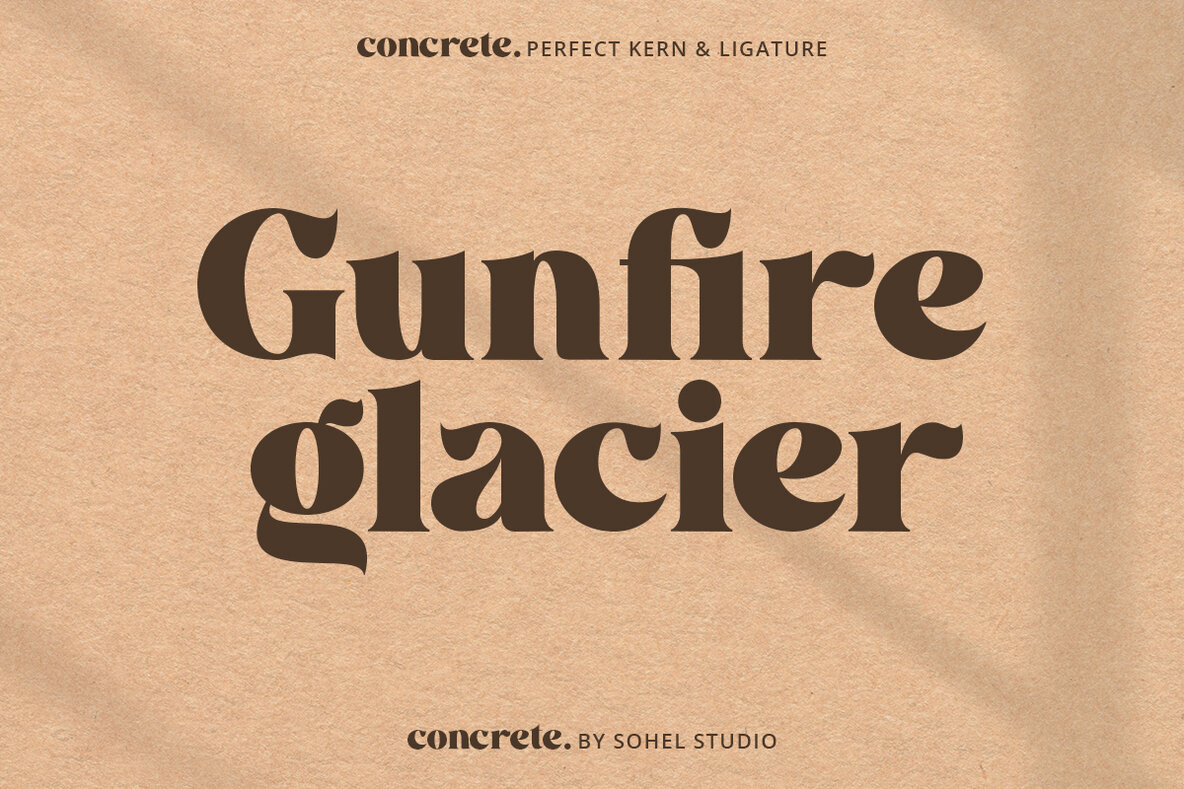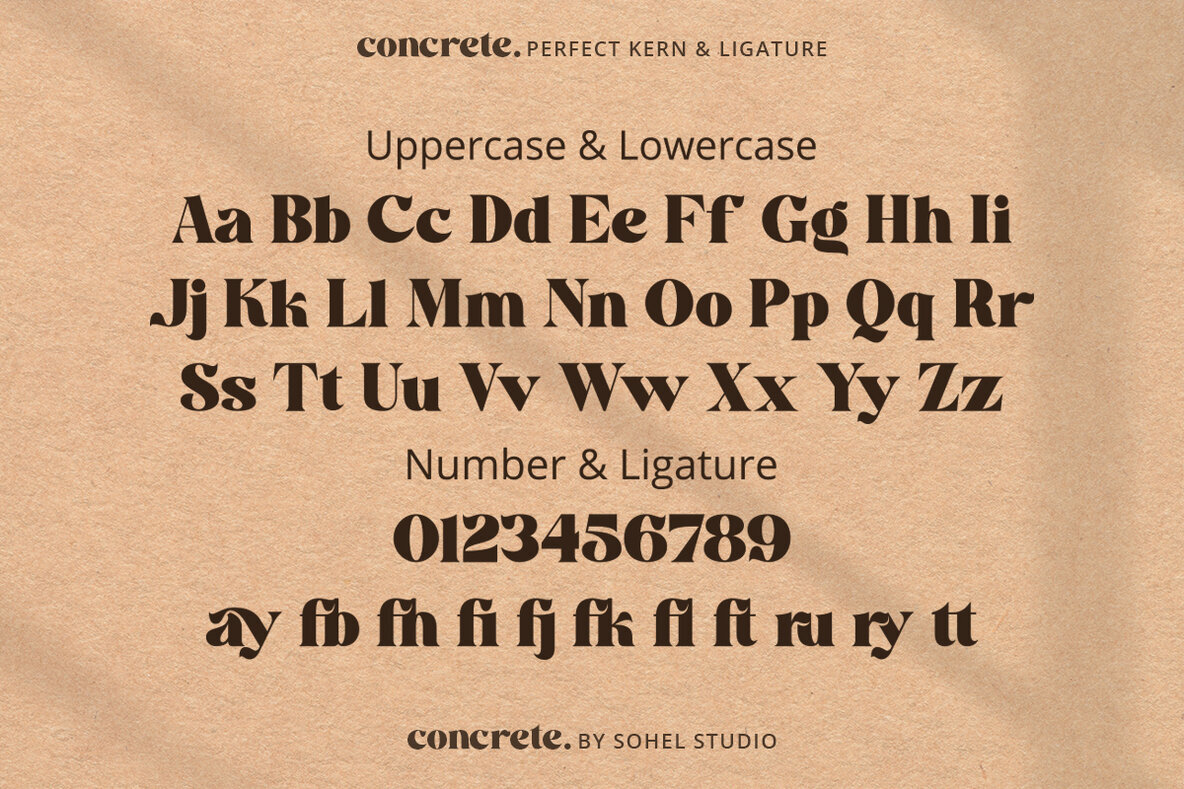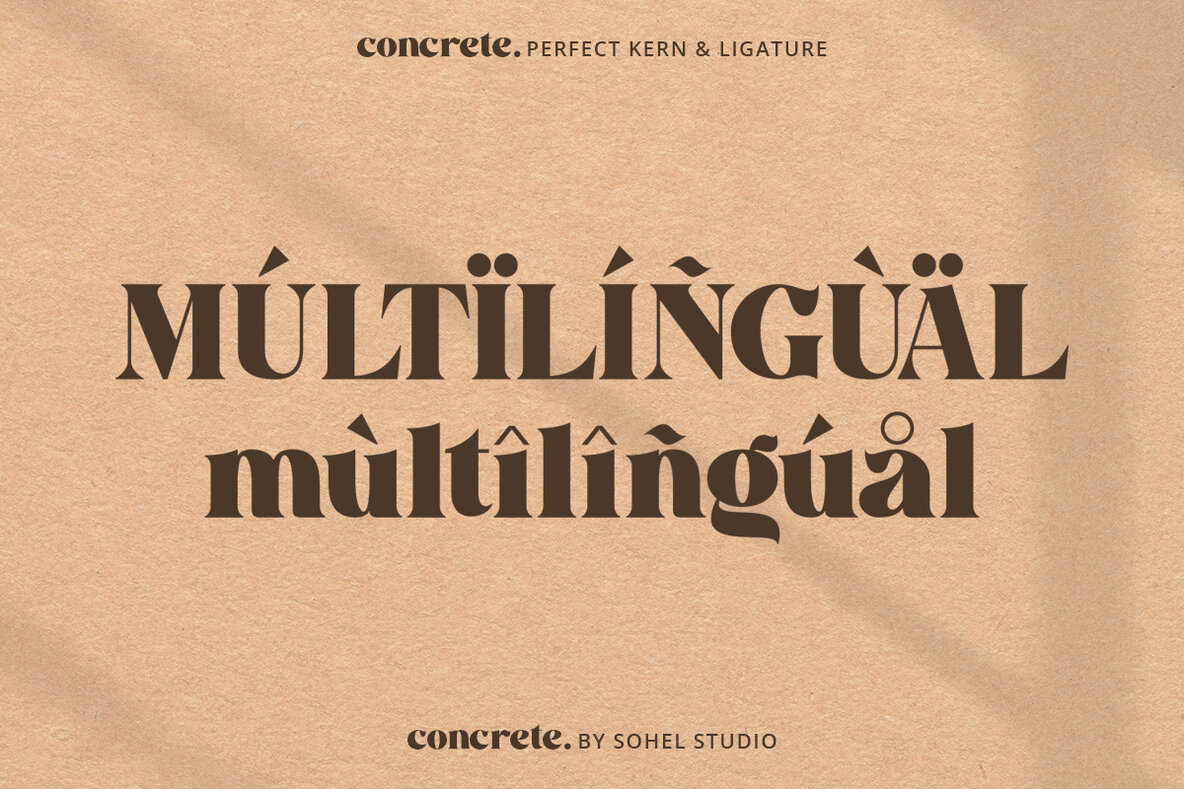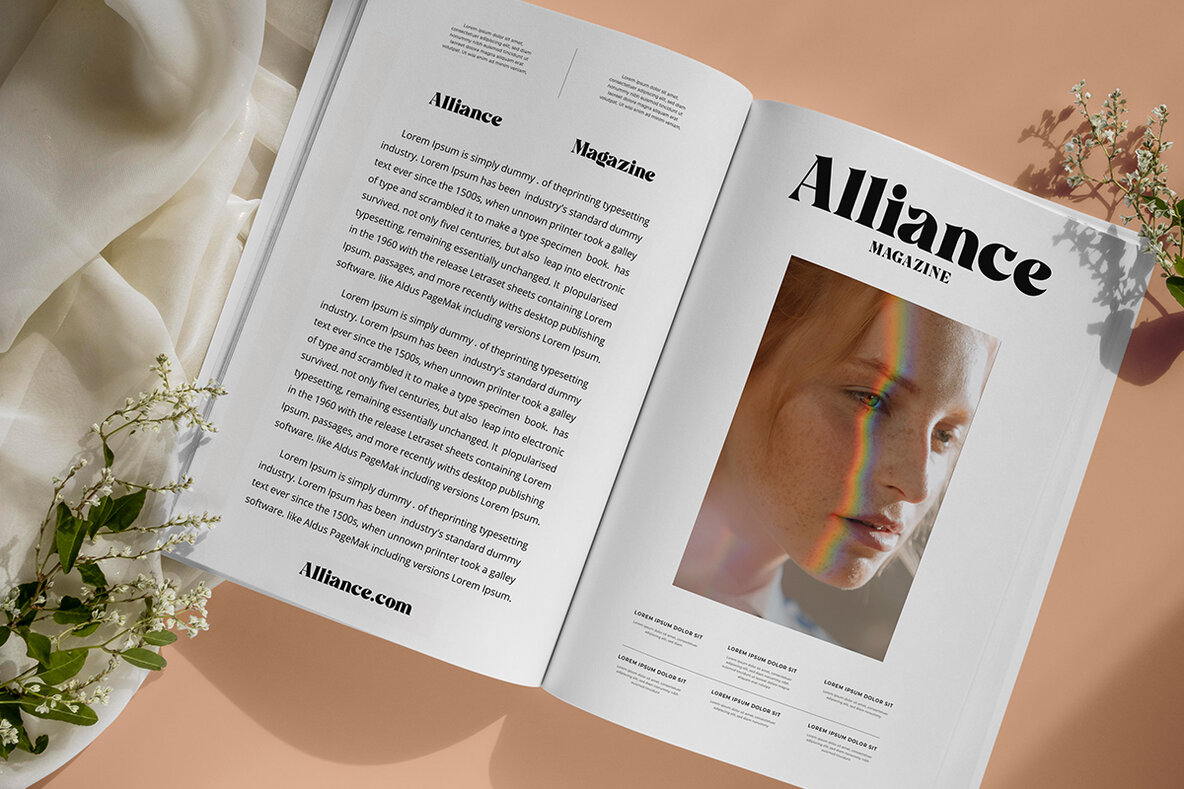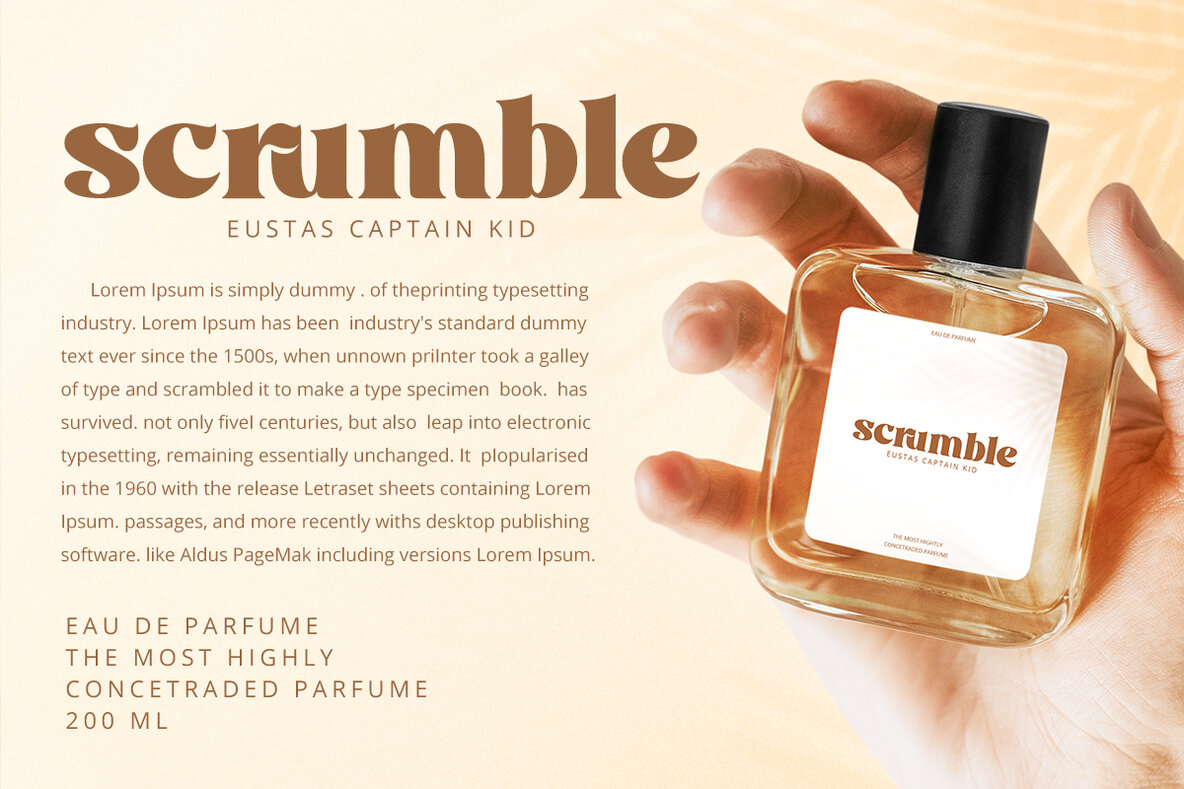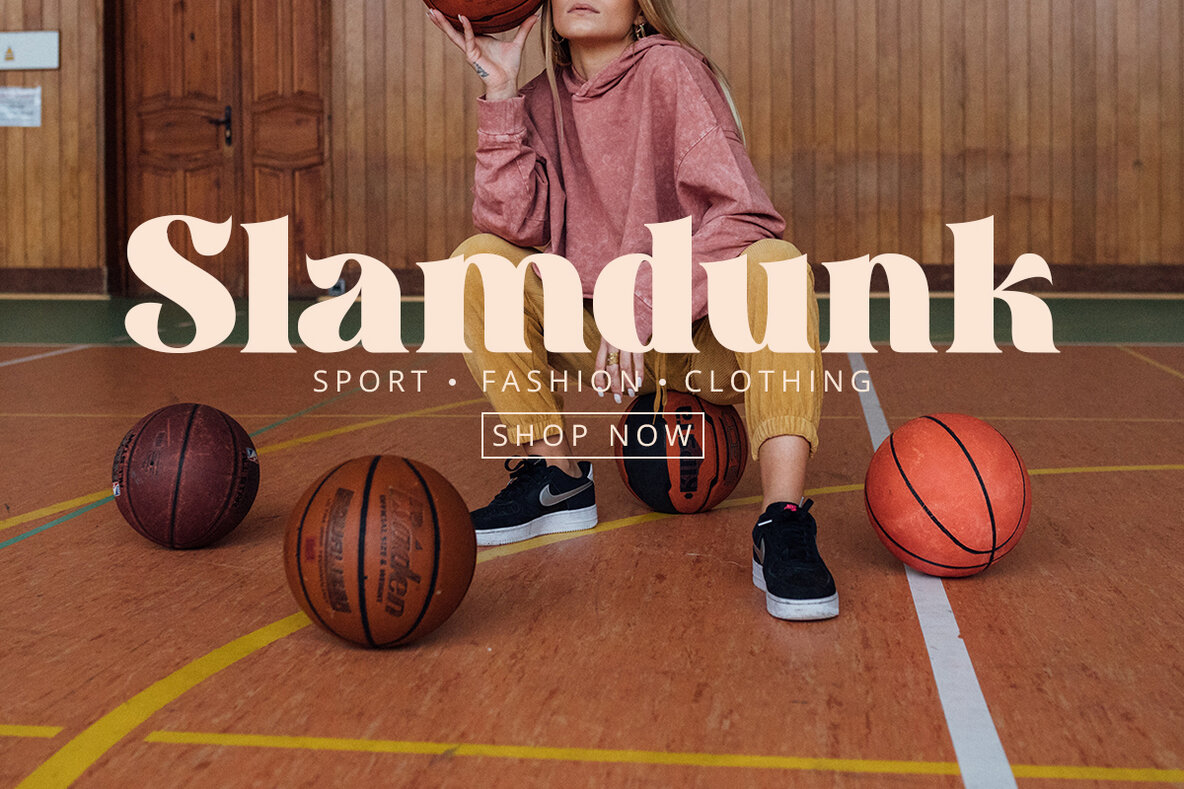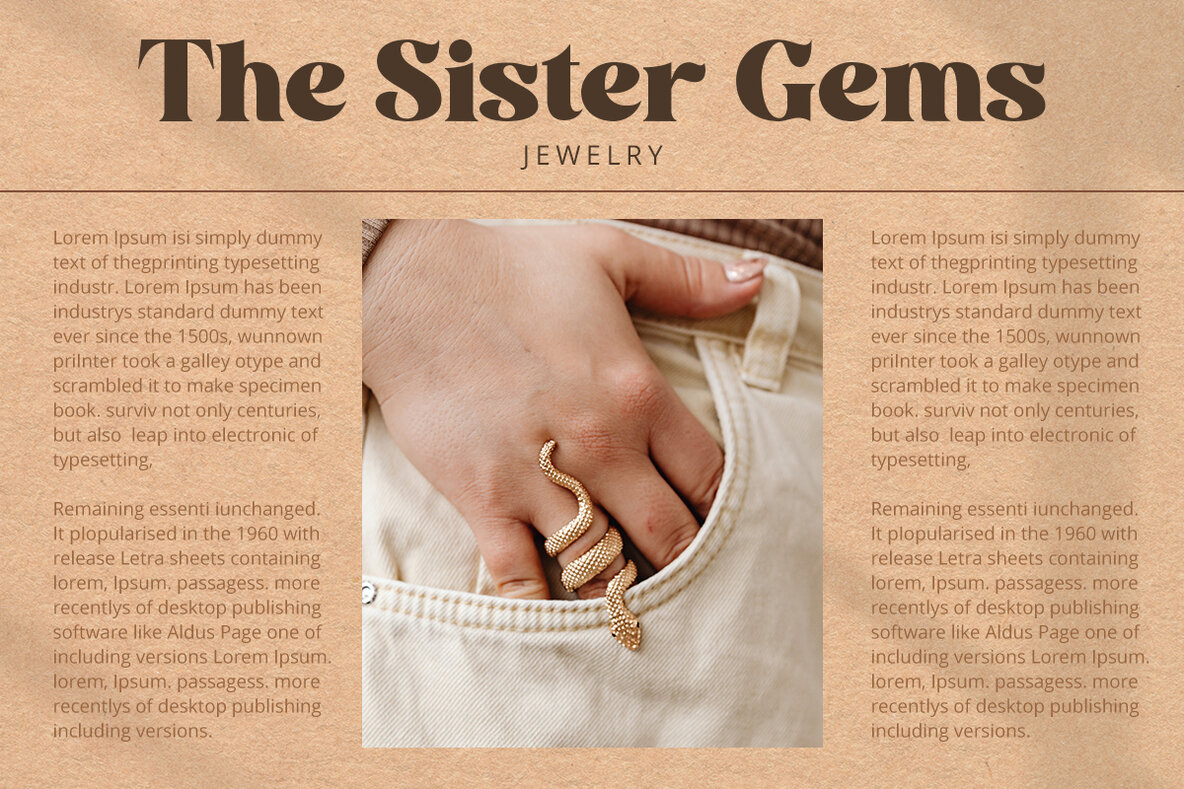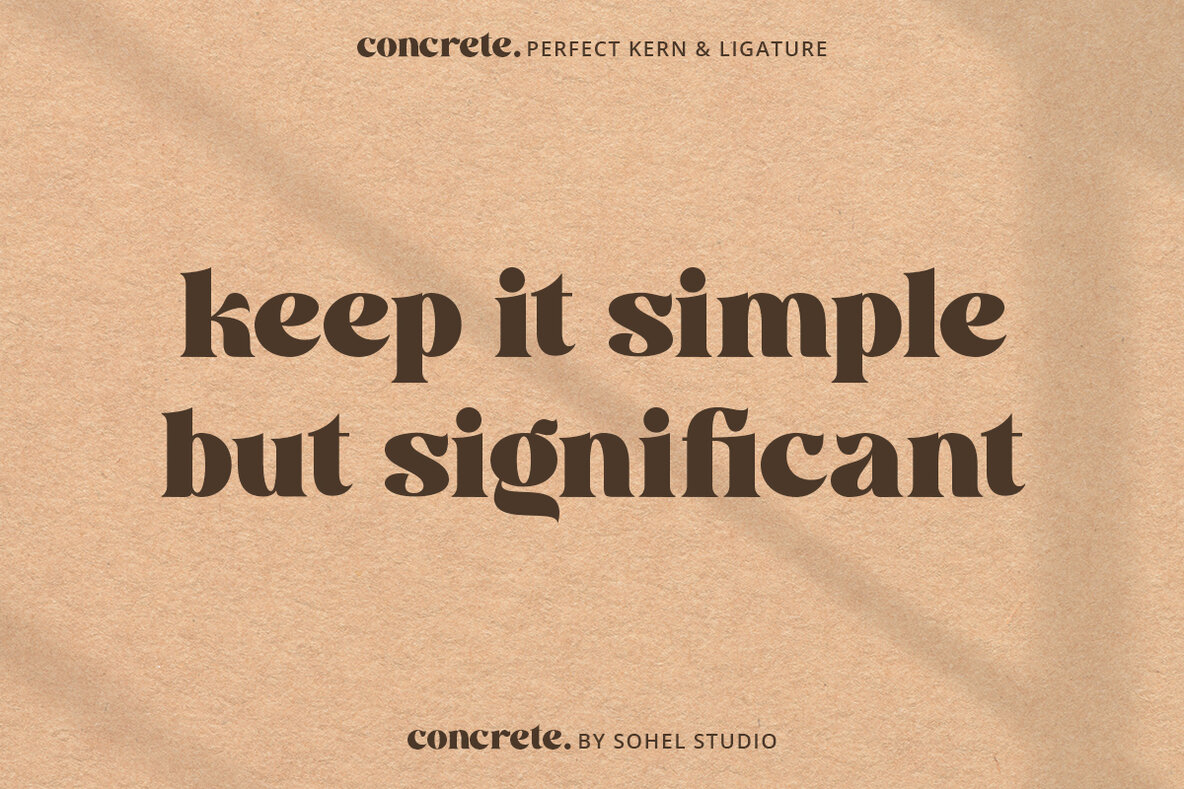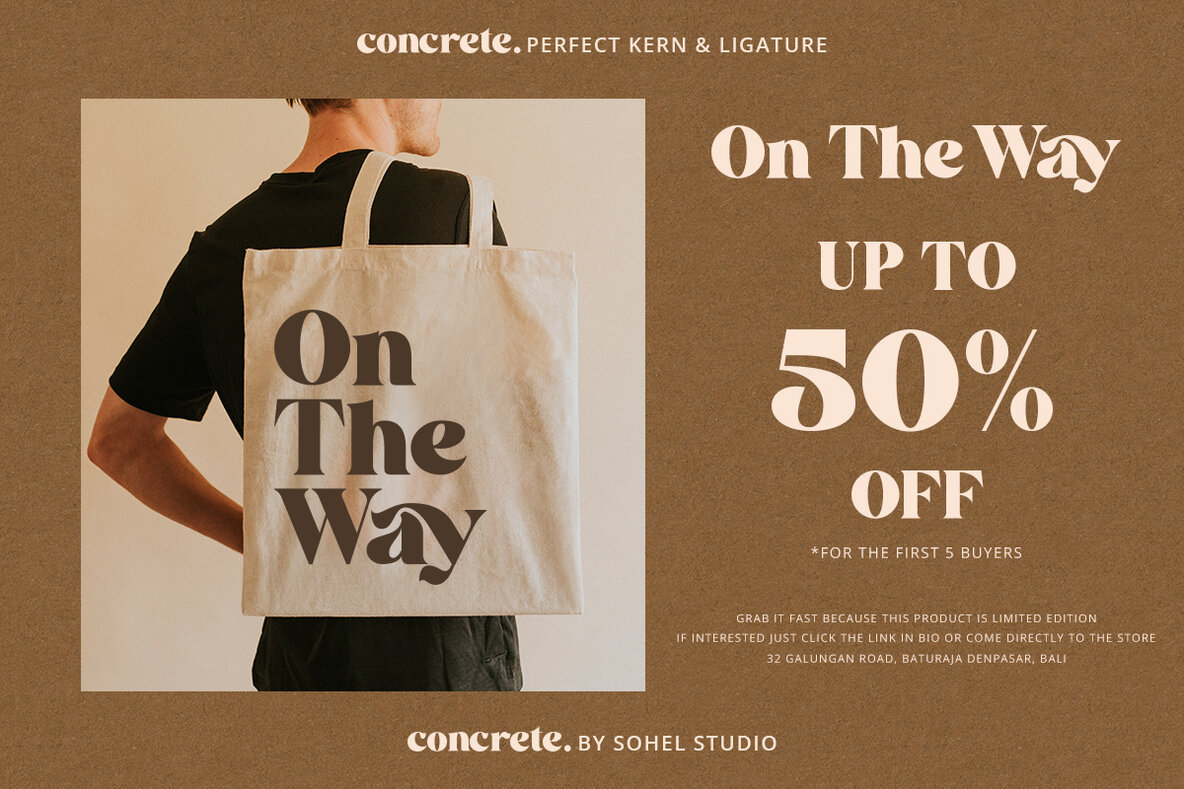
Concrete Modern Retro Bold Serif . That has a unique style & luxurious look. is great for logos, editorial, web design, craft projects, shirts, decor, wedding invitations, packaging, stickers, social media, quotes, magazines and more!. The unique sharp serifs mixed with thin strokes give off a bold mid century architectural vibe.
Concrete features:
• 4 Weights font (Regular, Oblique, Bold, Thin)
• Uppercase And Lowercase
• Numerals & Punctuation
• Accented characters
• Multilingual Support